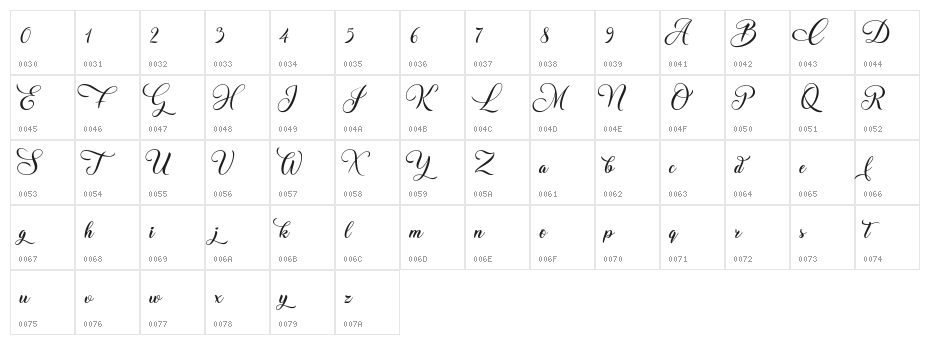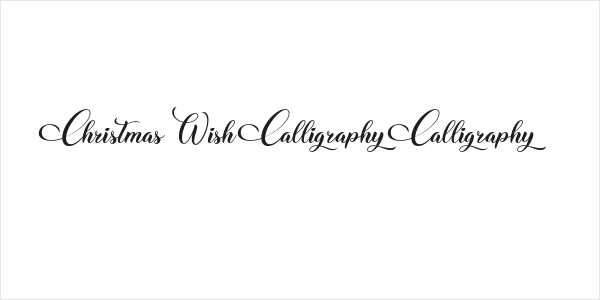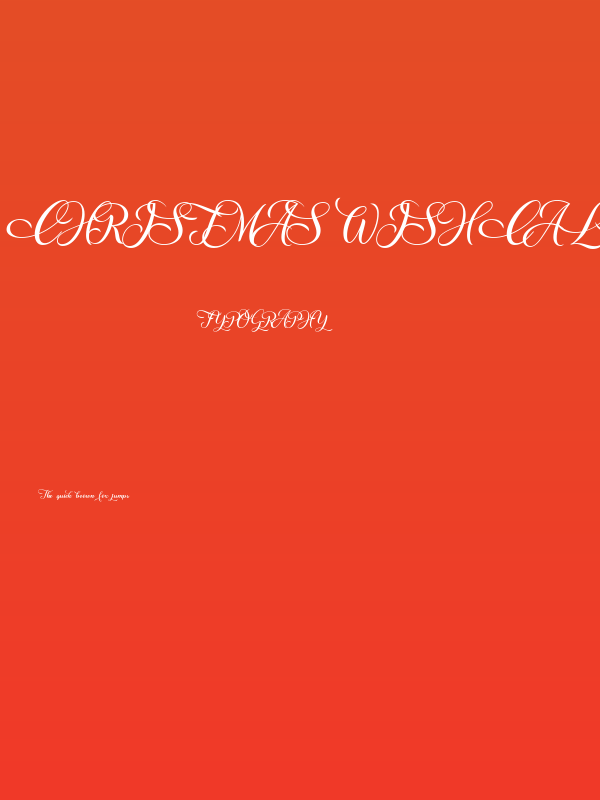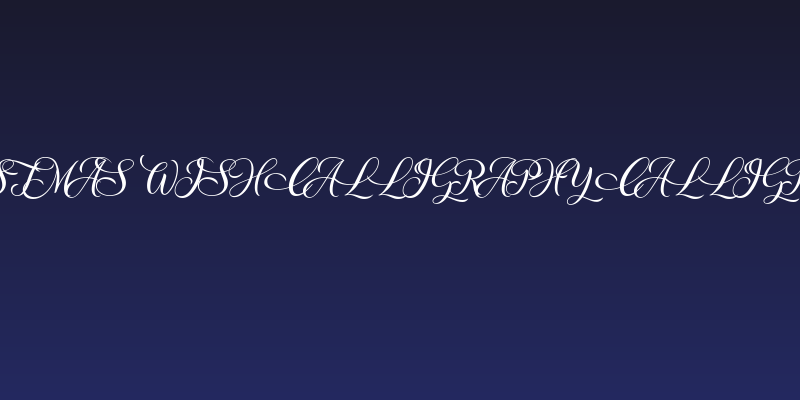
Christmas Wish Calligraphy Font
Christmas Wish Calligraphy Description
This elegant calligraphy font features flowing, interconnected strokes that exude a sense of sophistication and grace. The uppercase letters are adorned with intricate swirls and loops, creating a sense of movement and fluidity. The lowercase letters maintain a consistent style, with delicate curves and a slightly slanted orientation that enhances the handwritten feel. The numerals are equally ornate, with a harmonious balance between boldness and delicacy. This font is perfect for adding a touch of elegance to any design, making it ideal for formal invitations, greeting cards, and decorative projects. Its artistic flair and classic calligraphic style make it a versatile choice for various creative applications.
| Use Case | Invitations, Greeting cards, Decorative projects |
| Proposed Projects | Ideal for wedding invitations, holiday cards, branding, and decorative projects. |